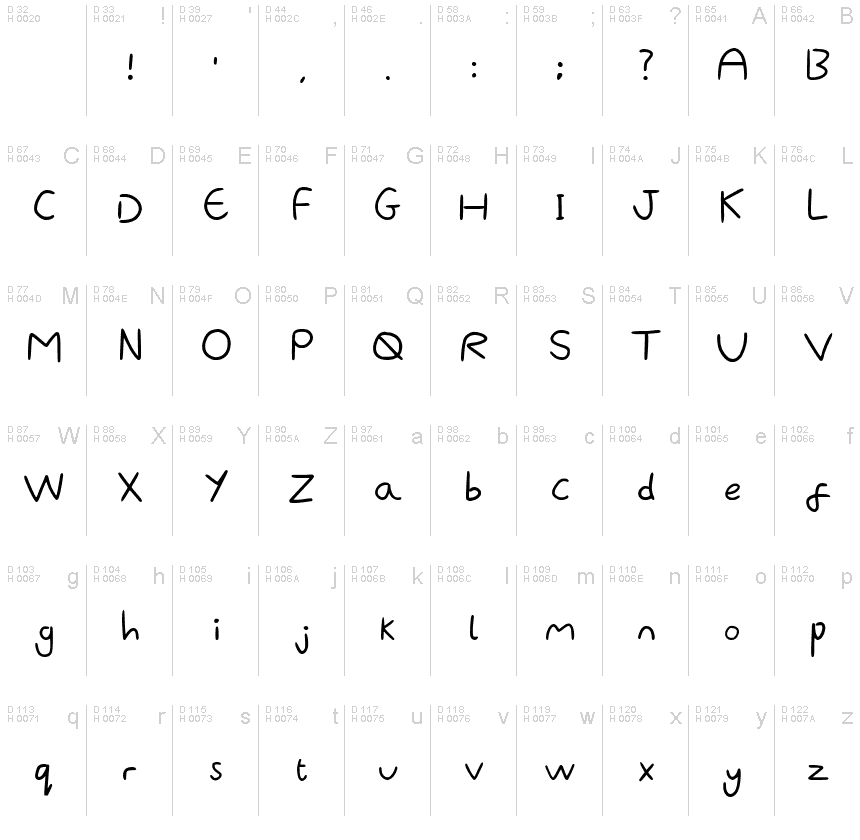
Ayumifont Regular
Ayumifont, designed by yumiix, is a casual handwritten typeface that exudes a playful and carefree vibe. Its semi-light weight and semi-expanded width make it perfect for projects that require a laid-back yet legible font. From children's book covers to Instagram posts, Ayumifont adds a touch of whimsy to any design. Use it for greeting cards, logo designs, or any project that could benefit from a charming hand-drawn feel. With Ayumifont, you'll be able to convey your message with style and flair while keeping things light and fun.